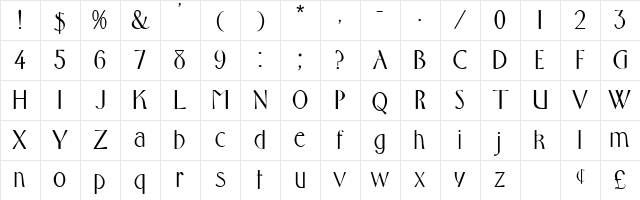
Toque Display SSi is built around its visual character rather than neutral utility - its distinctive forms are designed to make an impression at display sizes.
Font Pairing: Pair with a clean neutral sans-serif for body copy to let Toque Display SSi's character lead without overwhelming the composition.
Pro Tip: Use Toque Display SSi exclusively at display sizes - it was designed to be seen, not read at length. Let a neutral companion handle body copy.